In the world of graphic design, using a stunning handwritten font is one of the best ways to create an aesthetic, warm, and characterized look. This font resembles handwriting with a unique, artistic, and expressive touch. These characters help convey a personalized design while building a strong emotion for the audiences. Its natural handwriting gives a more vibrant and authentic feel, making it ideal for branding, logos, packaging, and social media content.
As design trends evolve, the use of a stunning handwritten font is gaining popularity due to its ability to create a more engaging feel than standard fonts. Besides enhancing visual appeal, these fonts are also flexible and can be used in a variety of styles, from elegant to modern to playful. This makes brands appear more human, relatable, and memorable to audiences.
With all the advantages, stunning handwritten font styles become the best solution for designers to build a strong and characterized visual identity. Explore the best stunning handwritten font recommendations below and choose the right font to make your design more attractive, professional, and standout!
Meadow Anthem is a stunning handwritten font designed to capture the elegance of beautiful, natural handwriting. With its finely connected letters, clear stroke contrast, and subtle ink accents, this font presents an elegant, expressive, artistic, and refined style. Its flowing letter structure creates a harmonious typographic rhythm, suitable for logos, branding, wedding invitations, and social media, with flexible ligatures.
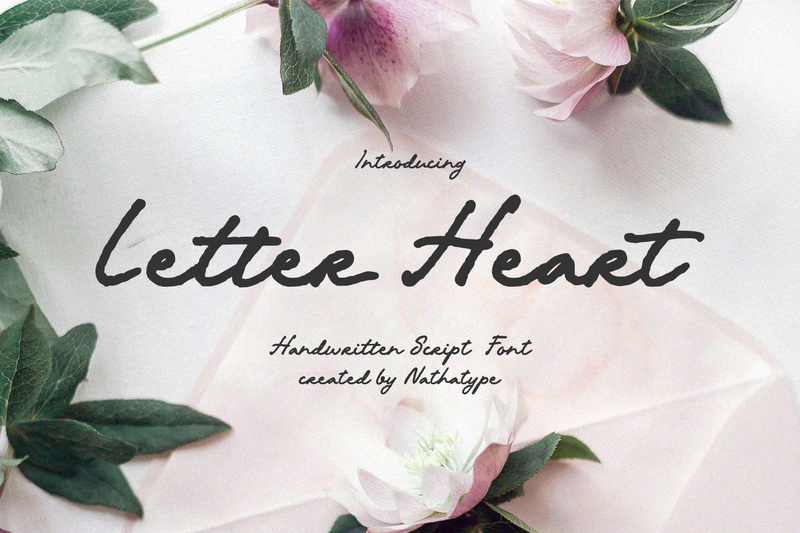
Featuring an expressive and artistic handwriting style, Letter Heart combines natural cursive flow with a unique distressed touch. Equipped with various ligatures and stylistic sets, Letter Heart allows for a natural blend of letters and more flexible design variations. Letter Heart is ideal for various design needs such as logos, branding, wedding invitations, and even personal and distinctive social media content.
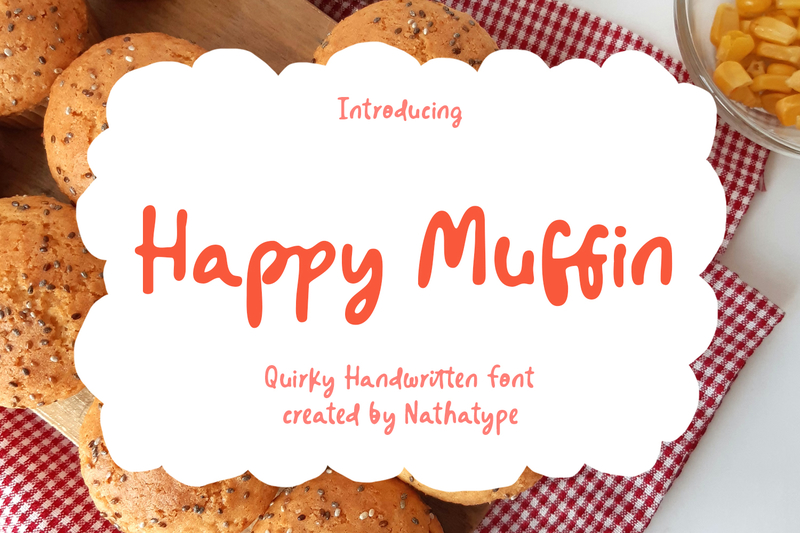
Happy Muffin is a stunning handwritten font with a playful and warm style, bringing a cheerful, friendly, and characterful feel to every design. Its rounded letterforms and light strokes create a soft, airy look with an authentic, handcrafted feel. Complete with ligatures, this font offers a natural blend of letters, ideal for branding, food packaging, children’s designs, and engaging creative content.
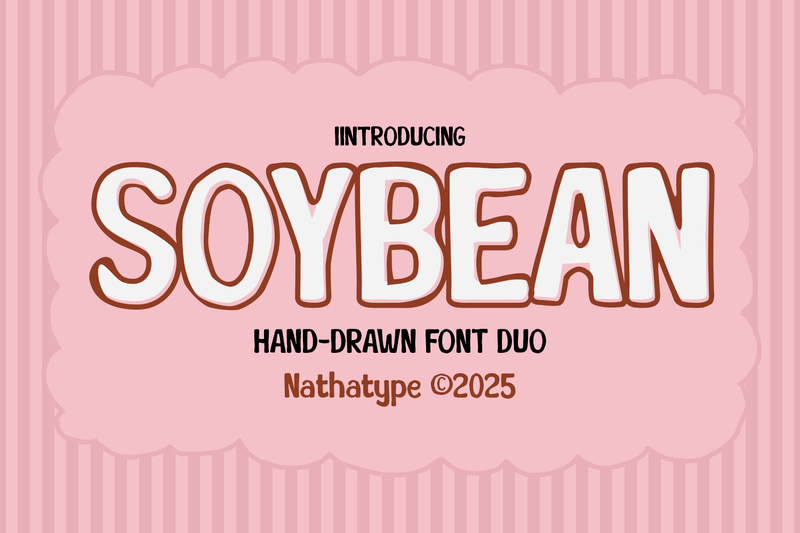
Soybean is a hand-drawn font duo that gives a warm, friendly, and playful feel to a design. Inspired by organic lettering style and casual sketches, this font has a gentle curve and balanced proportions. As a result, it can create an expressive look that is still easy to read. It also features two flexible styles: solid and outline. With the characteristics and features this font has, it is ideal for headlines, logos, branding, and product packaging that seek characterized and attractive designs.
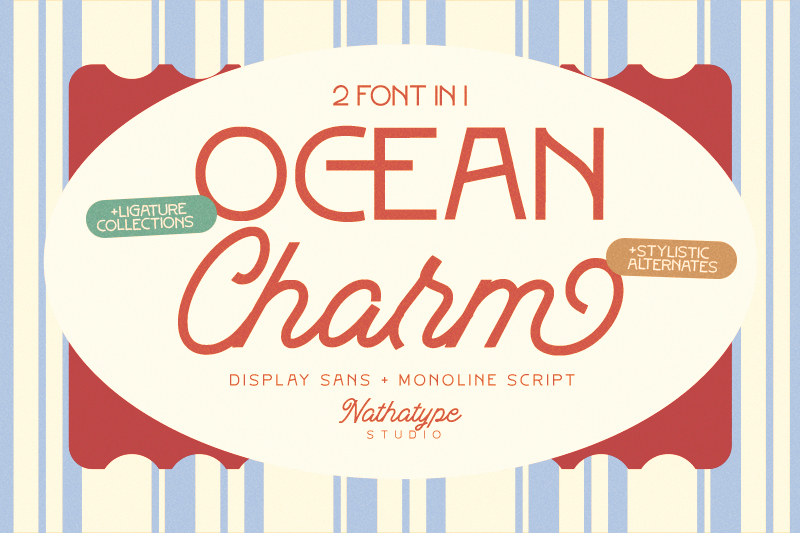
Ocean Charm is an enchanting font duo with the combination of a light display sans uppercase and an elegant and harmonious monoline script. This combination creates a balance between structure and its flow, making it one of the stunning handwritten font recommendations that are modern, stylish, and enchanting. These characteristics from Ocean Charm make it suitable for branding, logos, and packaging that seek a clean and refined look.
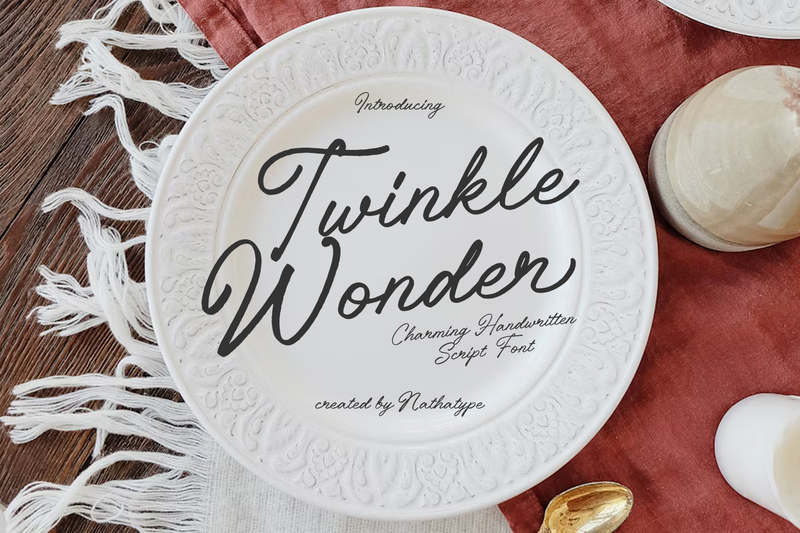
Twinkle Wonder is a charming handwritten script font with a flowing stroke resembling a medieval writer’s pen. Its handwriting style creates an elegant and satisfying look for various designs. In addition, Twinkle Wonder is complete with ligatures and stylistic sets that offer the flexibility to create unique, harmonious, and distinctive visuals. As a result, its playful touch of graceful strokes makes this font ideal for branding, logos, and personal and professional packaging.
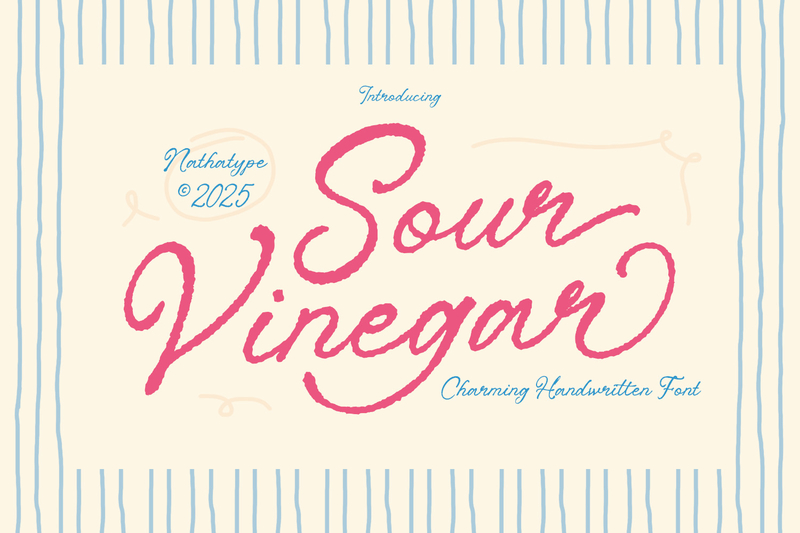
Presenting an elegant, stunning handwritten font style, Sour Vinegar is a cursive font that is inspired by a smooth and dynamic pen stroke. With the gentle and flexible letter’s connection, this font has low-contrast characters and slightly irregular strokes. These characteristics create a more lively, expressive, and authentic hand-drawn feel.
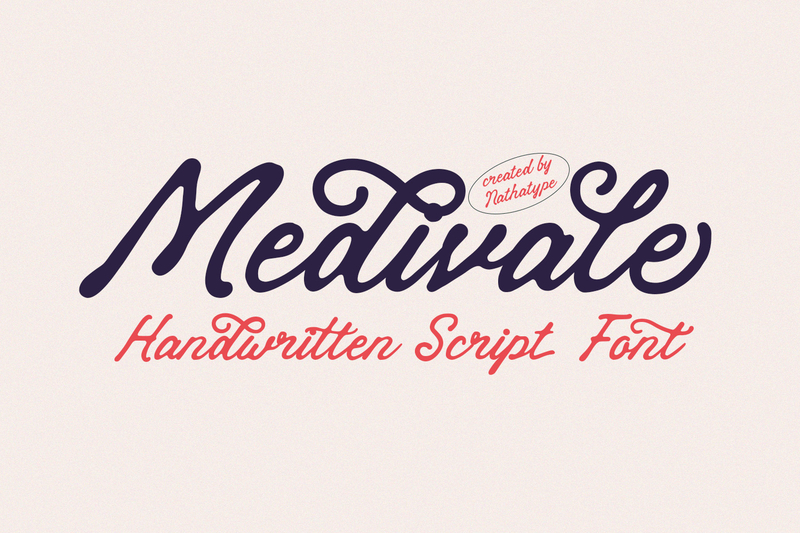
Beautifully designed as a handwritten script font, Medivale presents an elegant, graceful, and timeless feel. It takes natural cursive as its reference that offers connected letters with low contrast. As a result, this font gives a flowing, personalized, and luxurious look for various designs. Therefore, it is suitable for wedding invitation designs and logo branding that seek clarity and professionalism.
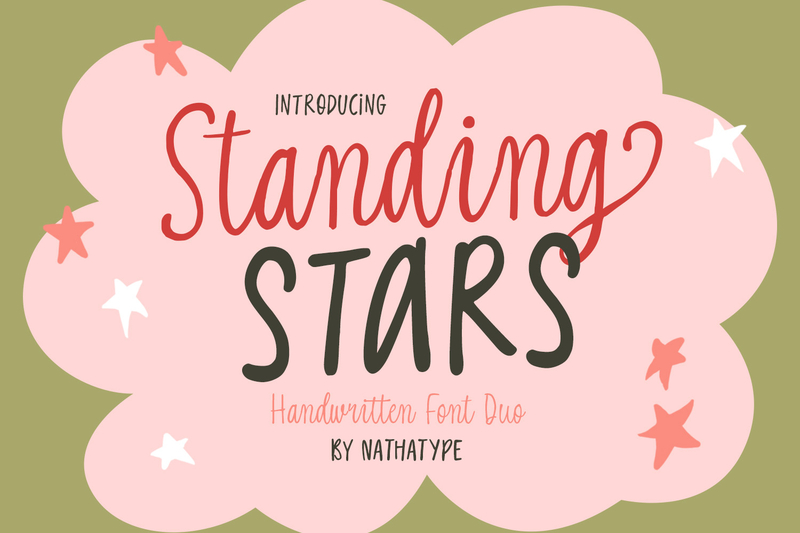
Additionally, the right font selection helps build a stronger visual emotion and be more relevant to the audiences. So, discover and use the best stunning handwritten font recommendations and make your design stand out, memorable, and ready to challenge the digital market!